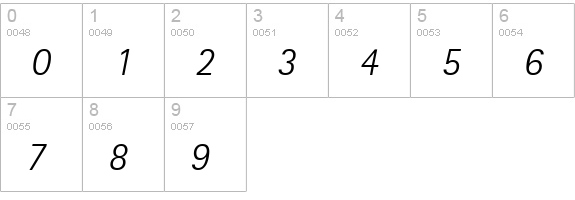
Libre SansSerif Light SSi Light Italic Font Details
Libre SansSerif Light SSi Light Italic is a refined, elegant, italic variant in the Libre typeface family \xE2\x80\x94 well suited to elegant body text, refined sub-headings, and luxury branding.
Libre SansSerif Light SSi Light Italic font is a modern and elegant typeface that exudes sophistication and style. Its sleek and slender design makes it perfect for adding a touch of sophistication to any project. The gentle slant of the italicized letters adds a sense of dynamism and movement to the text, making it visually appealing and engaging to readers. This font is not only aesthetically pleasing but also versatile, suitable for a wide range of design projects such as branding, editorial design, and web design. Whether used for headlines, body text, or captions, Libre SansSerif Light SSi Light Italic font will effortlessly elevate the overall look of your design. What's even better is that this font is available for free download at FontsMarket.com. You can easily access and use Libre SansSerif Light SSi Light Italic font in your projects without any cost, making it a valuable resource for designers looking to enhance their typography game. Don't miss out on the opportunity to incorporate this stylish and sophisticated font into your next design project.